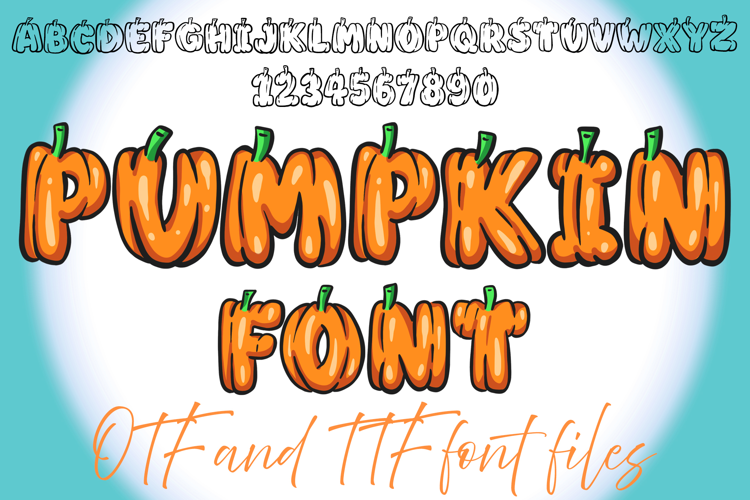
4 Halloween color fonts bundle sets is a cute and fun color fonts. It will look fantastic on all your Christmas-themed designs including t-shirt design, mug designs, digital designs, crafts, cards, and any projects!